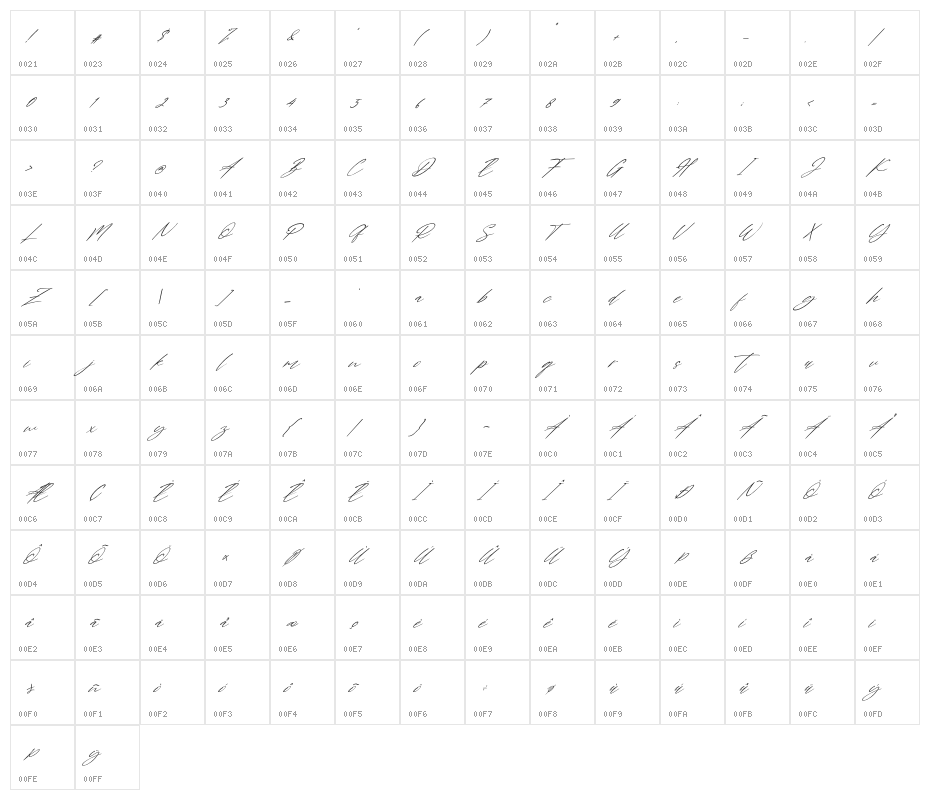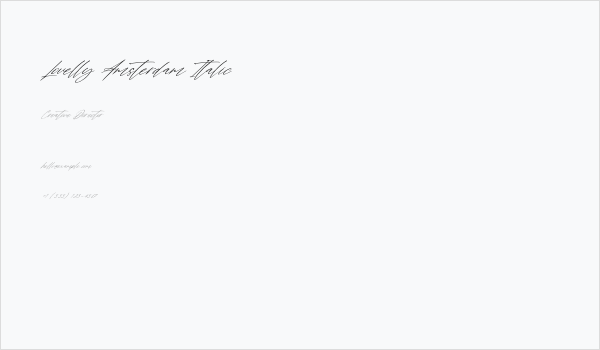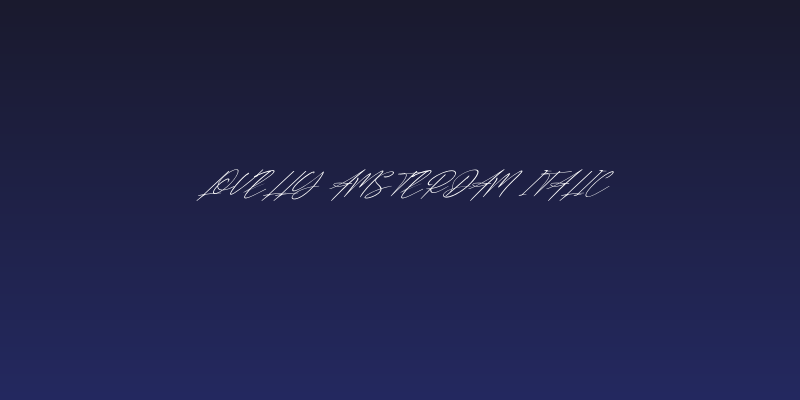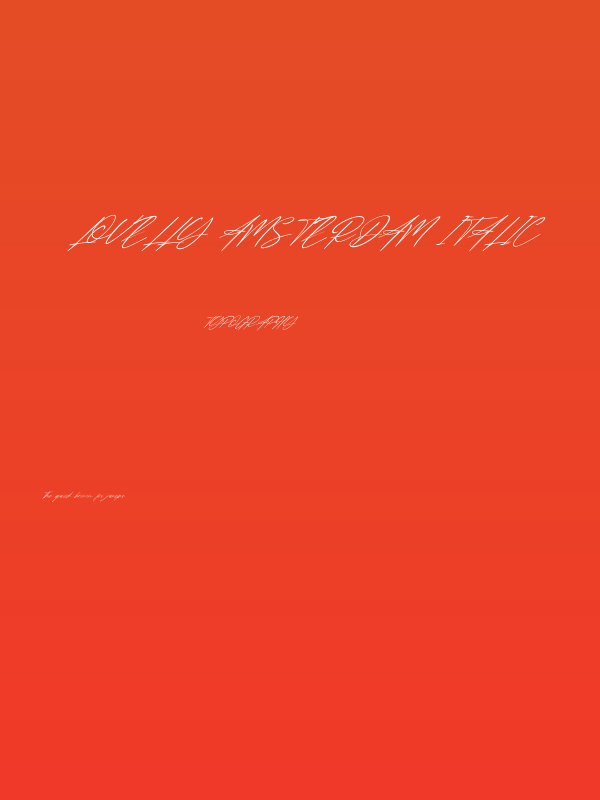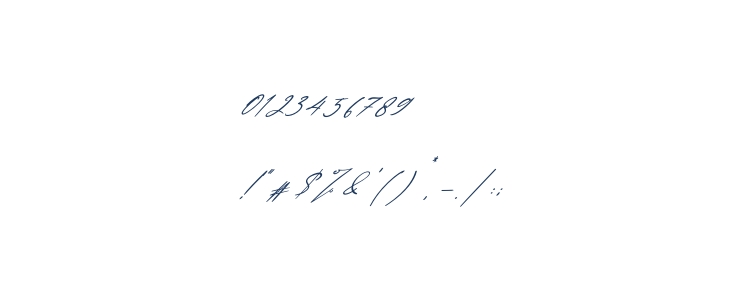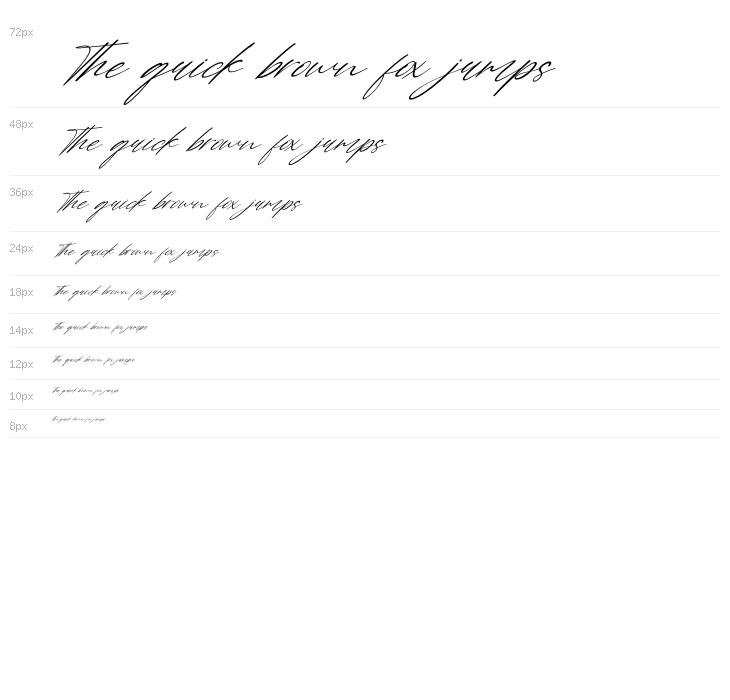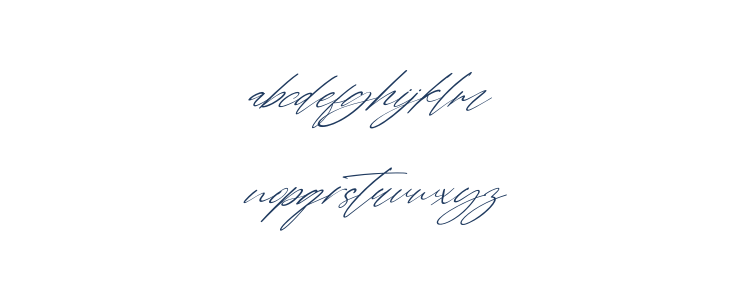
Lovelly Amsterdam Italic Font
Lovelly Amsterdam Italic Description
This elegant script font features a flowing, cursive style with a distinctly italicized slant, giving it a sophisticated and artistic appearance. The characters are intricately designed with smooth, continuous strokes that mimic the fluidity of handwriting. The uppercase letters are tall and graceful, while the lowercase letters maintain a consistent flow, enhancing readability. The numerals and special characters are crafted with the same attention to detail, ensuring a cohesive look across all text. This font exudes a sense of elegance and refinement, making it ideal for projects that require a personal touch.